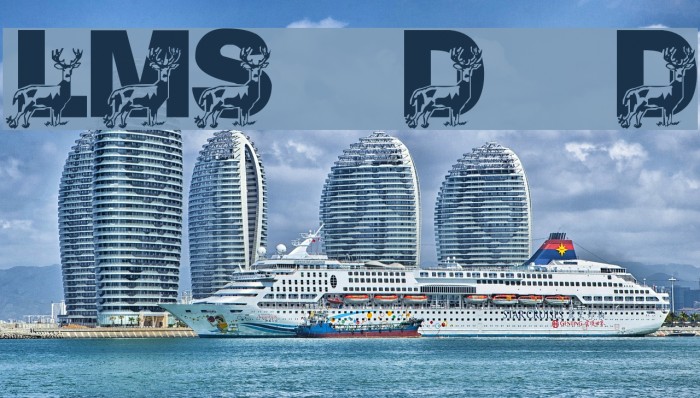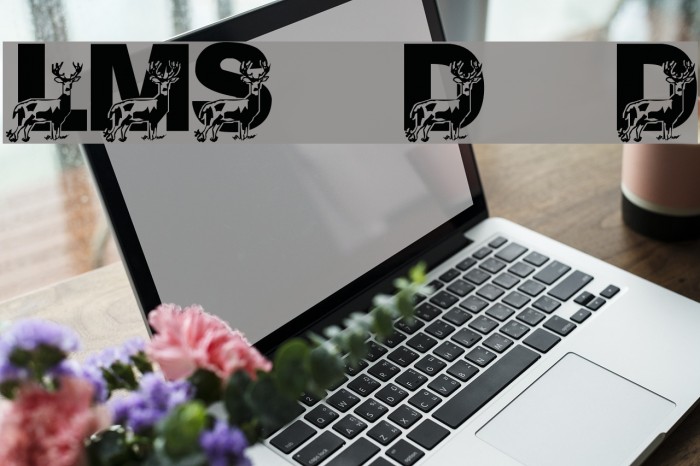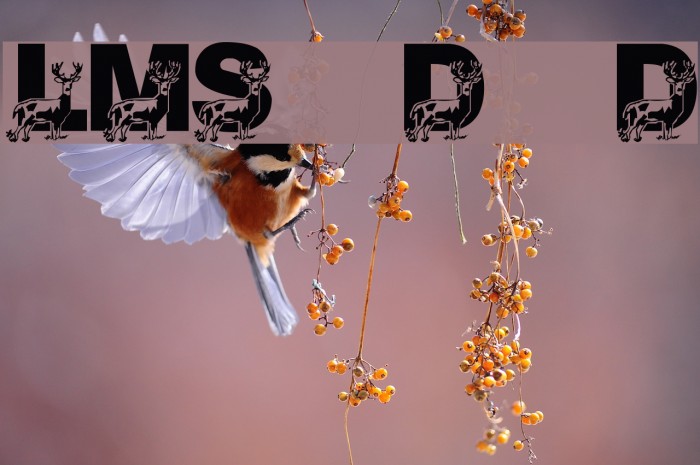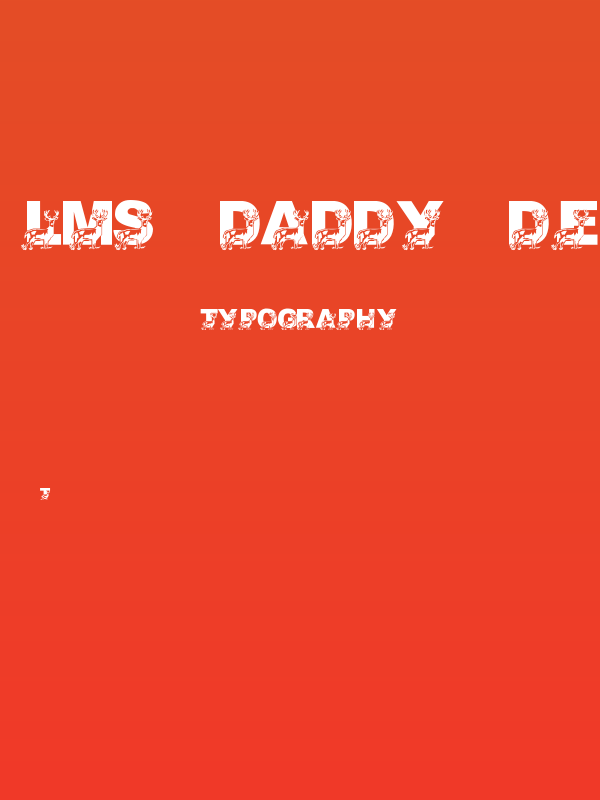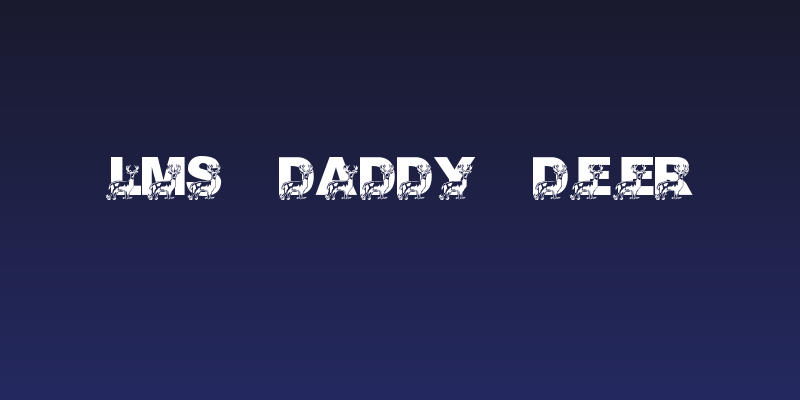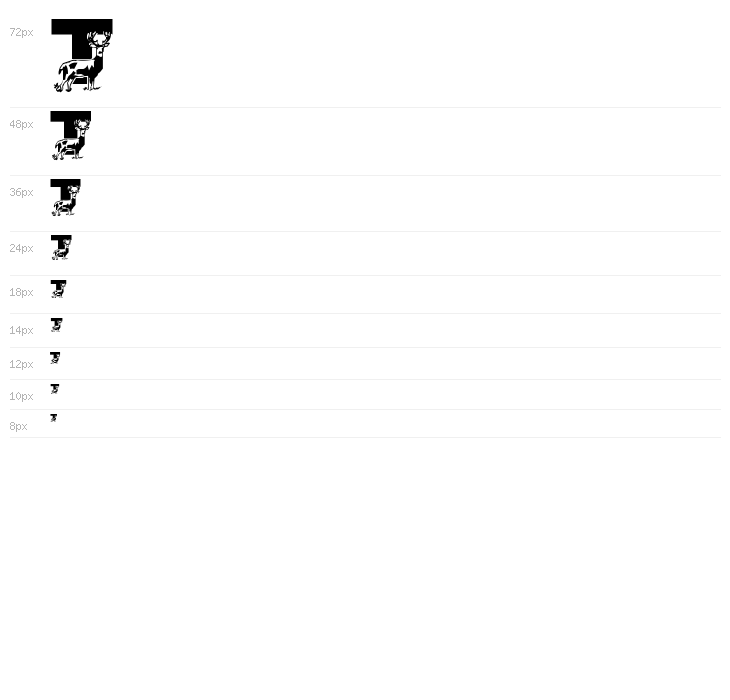
LMS Daddy Deer Font
LMS Daddy Deer Description
This decorative font features bold, uppercase letters with a unique design element: each character is adorned with a detailed deer silhouette integrated into the lower portion of the letter. The font combines a strong, solid black letterform with intricate, nature-inspired imagery, creating a striking contrast. The deer motifs add a whimsical and rustic touch, making the font ideal for projects that require a blend of boldness and natural elegance. The characters are evenly spaced, ensuring readability while maintaining the decorative aspect. This font is perfect for creative projects that aim to capture attention with its distinctive style.
| Proposed Projects | Ideal for nature-themed branding, holiday cards, rustic event invitations, and outdoor product packaging. |